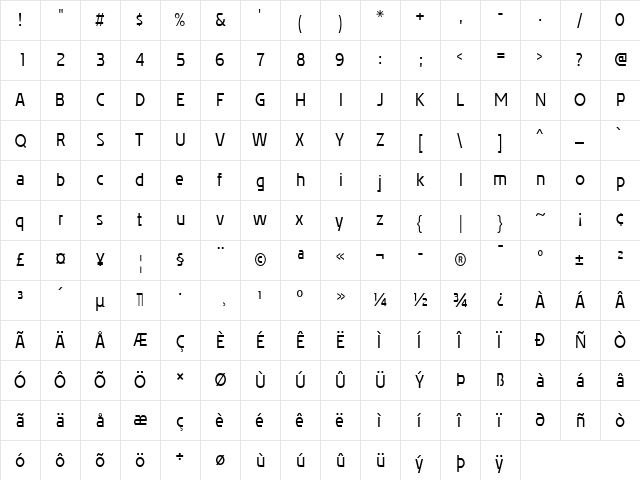
Affluent Regular
Design Context for Affluent Typeface
Affluent offers clean, dependable letterforms without strong stylistic allegiance, making it a practical choice for designers who need flexibility.